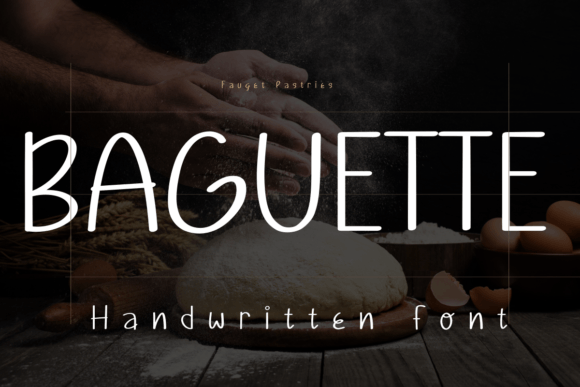
Feast your eyes on Baguette, a captivating script font that personifies playfulness and charm. Its handwritten sans serif design dances across your screen, leaving a trail of visual delight. Get swept away by its unique and timeless style, a testament to the artistry and dedication of Piyata Digital.
Baguette is your creative companion, ready to bring your projects to life with a touch of whimsy and elegance. Let your imagination soar as you craft stunning Easter greetings, back-to-school posters, wedding invitations, and party decorations that radiate joy. Its versatility knows no bounds, extending to Fall-themed designs, Halloween treats, Christmas cards, and beyond.
Unleash your creativity and let Baguette elevate your designs to new heights. Create eye-catching posters that captivate your audience, blogs that sparkle with personality, clothing that exudes charm, and child-related designs that ignite their imaginations. Each stroke of Baguette carries the promise of a smile, making it the perfect choice for greeting cards, cloth bags, mugs, and social media posts.
With Baguette by your side, you can effortlessly infuse your designs with a friendly and welcoming touch. Its playful nature adds a dash of cheer to any project, while its timeless style ensures that your creations remain relevant and captivating. Experience the magic of Baguette today and embark on a creative journey filled with endless possibilities.